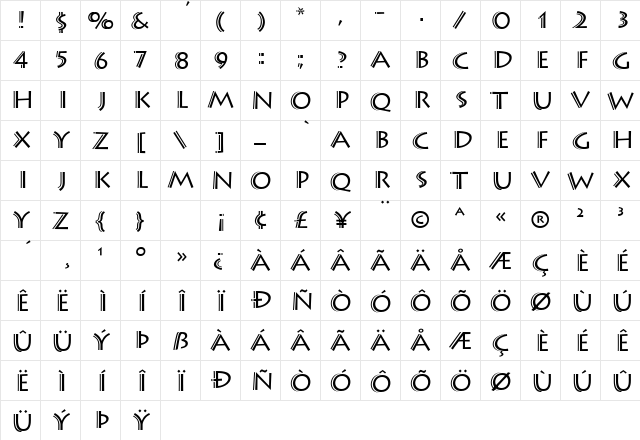
ListiumEngraved Normal
Design Context for ListiumEngraved Typeface
ListiumEngraved brings ornamental detail and strong personality to headlines and identities, where visual impact matters more than quiet functionality.
Font Pairing: Pair with a clean neutral sans-serif for body copy to let ListiumEngraved's character lead without overwhelming the composition.
Pro Tip: Use ListiumEngraved exclusively at display sizes — it was designed to be seen, not read at length. Let a neutral companion handle body copy.